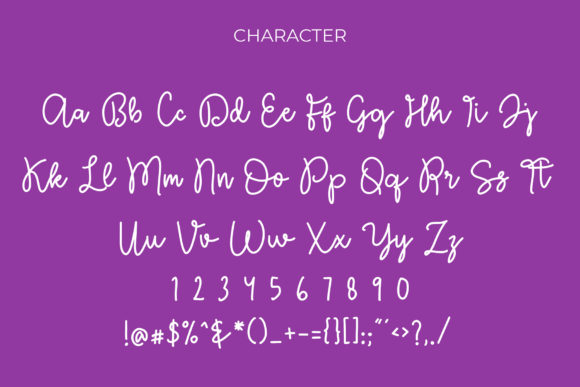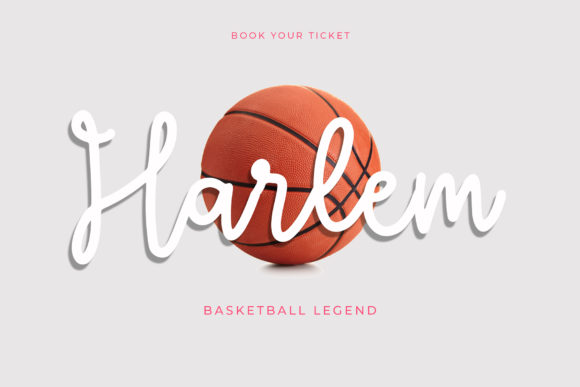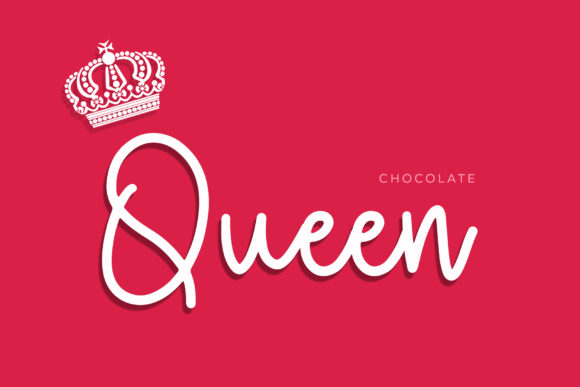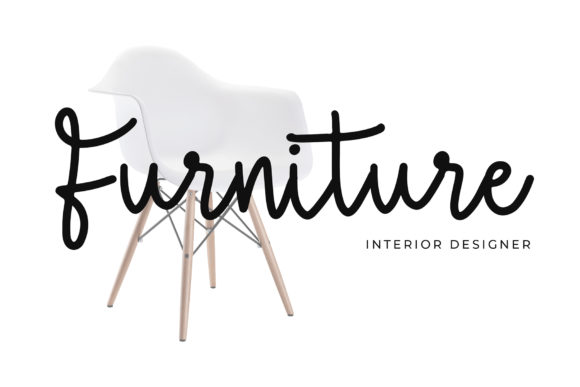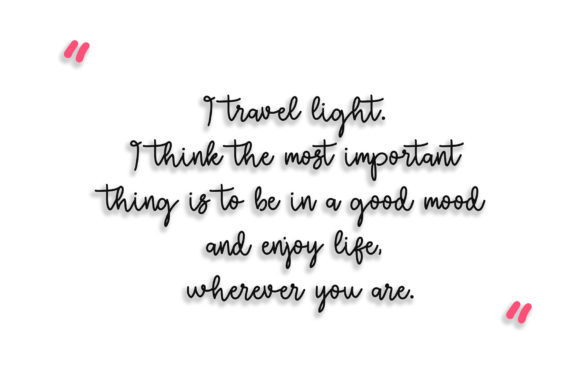
Introduction to Royattin Font
Have you ever found yourself staring at a blank page, desperate for the perfect design to bring your creative project to life? That’s exactly where the Royattin Font comes in – a beautiful, round lettered handwritten font that will transport your designs to new heights. Its versatility and elegance make it an absolute must-have for any designer looking to add a personal touch to their work.
Whether you’re crafting gorgeous wedding invitations, beautiful stationery art, or eye-catching social media posts, the Royattin Font is the perfect design resource to elevate your creations. Its unique style and high-quality design make it an invaluable asset for designers of all levels, and the best part? It’s available for free download, complete with a transparent background to give you complete flexibility in your design process.
Key Features of Royattin Font
- High-quality design resource perfect for creative projects, offering a unique and modern aesthetic.
- Designed to be highly legible, making it perfect for body text, headings, and titles in a variety of creative projects.
- Supports a wide range of languages, making it a versatile design resource for international creative projects.
Honest Review: Royattin Font
I recently stumbled upon the Royattin Font and was excited to give it a try. As a designer, I’m always on the lookout for high-quality design resources to elevate my creative projects.
- The Royattin Font offers a unique and modern aesthetic, perfect for contemporary designs.
- The font may not be suitable for formal or traditional designs, as it has a more playful and modern feel.
- The font family is relatively small, with only a few weights and styles available.
Overall, I was impressed with the Royattin Font and its potential to add a touch of modernity to my designs. While it may not be perfect for every project, it’s a solid addition to any designer’s toolkit.
To get the most out of the Royattin Font, use it in combination with other design elements, such as images and shapes, to create a visually appealing design. You can also experiment with different font sizes and styles to create a unique look.
The Royattin Font is commonly used in graphic design projects, such as logos, brochures, and business cards. It is also used in digital design projects, such as websites and social media graphics. The font’s high-quality design and transparent background make it perfect for a wide range of creative projects.